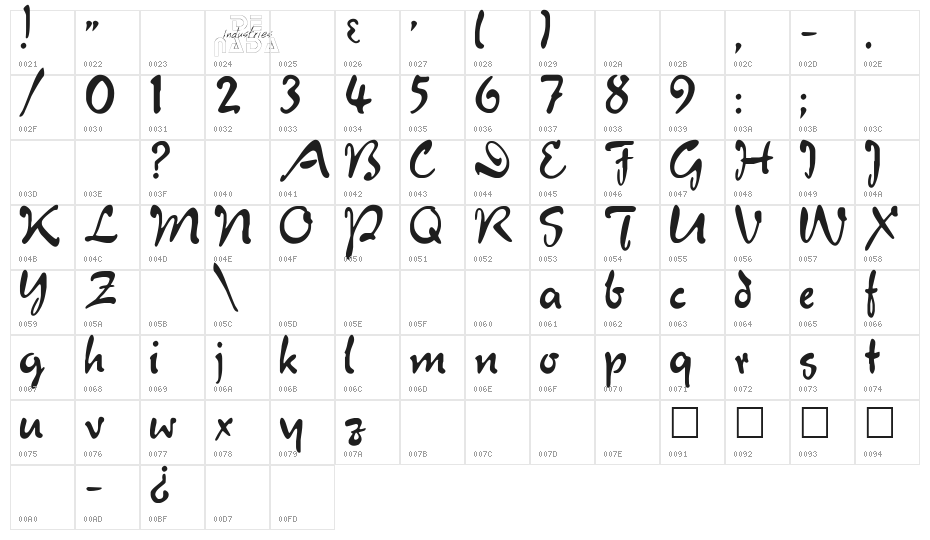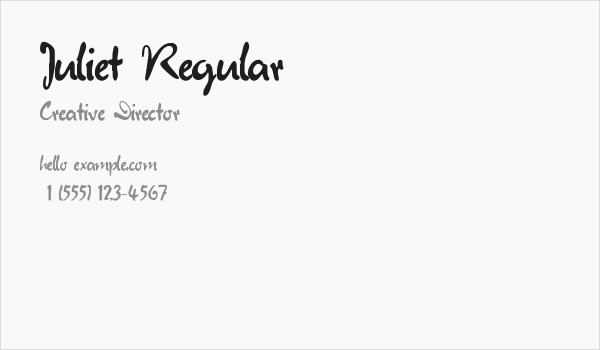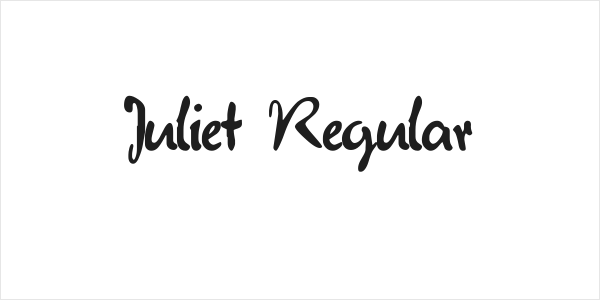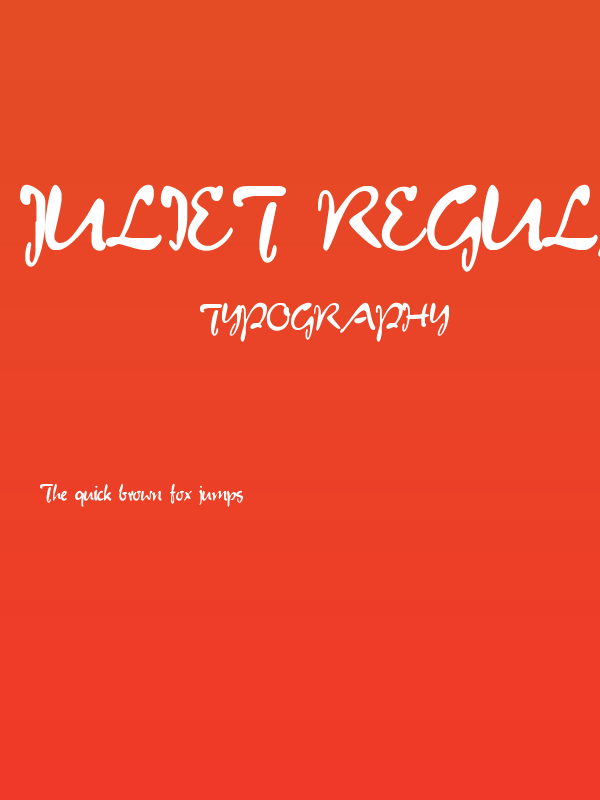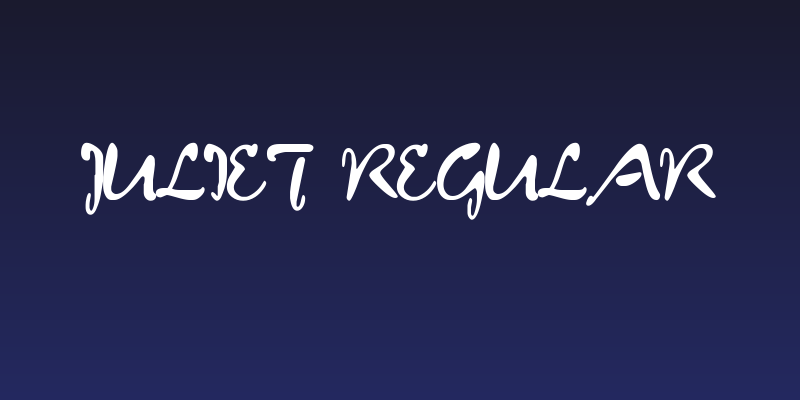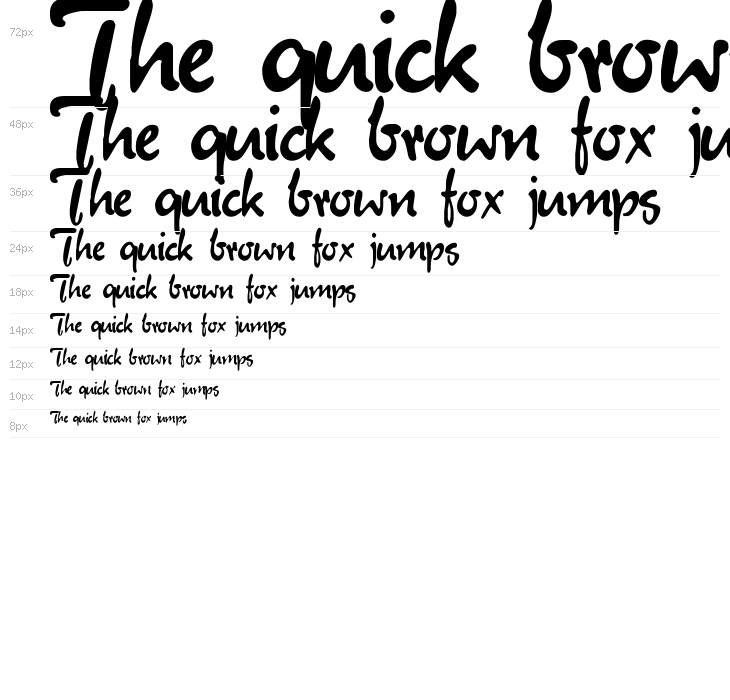
Juliet Regular Font
Juliet Regular Description
This font features a bold and expressive script style with a playful and dynamic flow. The uppercase letters exhibit a unique blend of curves and sharp angles, giving them a distinctive character. The lowercase letters maintain a consistent rhythm, with smooth connections and a slightly exaggerated stroke width that adds to the font's boldness. The numerals are rounded and maintain the same playful style, making them easily readable while still being visually interesting. Special characters are creatively designed, fitting seamlessly with the overall aesthetic. This font is perfect for projects that require a touch of personality and flair.
| Proposed Projects | Ideal for branding, logo design, invitations, and creative advertising materials. |